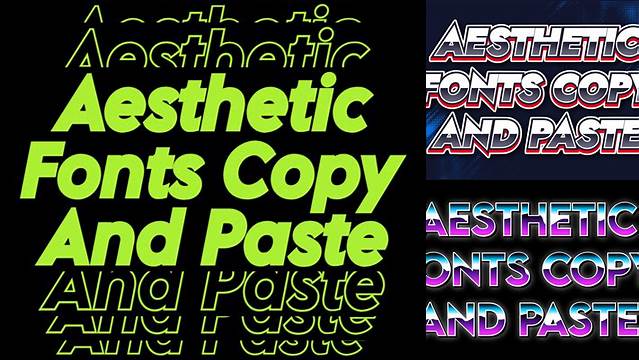
Aesthetic Text Fonts: Generate, Copy, & Paste Like A Pro!
Hey everyone! 👋 Ever wanted to spice up your social media posts, bios, or messages with some seriously cool fonts? You know, the ones that make your text stand out and scream aesthetic? Well, you're in the right place! This article is all about aesthetic text fonts and how to generate, copy, and paste them like a total pro. We'll dive into the world of fancy fonts, explore different generators, and give you all the tips and tricks you need to become a font aficionado. Let's get started!
1. What Exactly Are Aesthetic Text Fonts?
Okay, so first things first: what are aesthetic text fonts? They're basically stylized versions of the regular fonts you see every day. Think of them as the designer outfits for your plain text. They're fonts that are designed to be visually appealing, often incorporating unique styles, symbols, and characters to create a specific vibe. These fonts can range from elegant and sophisticated to quirky and playful, allowing you to express your personality and creativity in a whole new way. The beauty of aesthetic text fonts lies in their ability to transform ordinary text into something extraordinary. They're perfect for adding a touch of flair to your Instagram captions, Twitter bios, Facebook posts, or even your online usernames. Whether you're aiming for a vintage look, a futuristic feel, or something totally unique, there's an aesthetic text font out there for you. Plus, they're incredibly easy to use – just generate, copy, and paste! So, get ready to level up your text game with these amazing fonts. They are awesome and allow you to stand out from the crowd.
2. Top Aesthetic Text Fonts Generators You Need to Know
Alright, now that you know what aesthetic text fonts are, let's talk about how to get them. The key is a good font generator! There are tons of these tools online, but we've compiled a list of the best ones to save you time and effort. One of the most popular is the 'Stylish Text' generator. This tool is super user-friendly – just type in your text, and it instantly generates a variety of aesthetic text fonts for you to choose from. You can then copy and paste your favorite font directly into your social media profiles or messages. Another great option is the 'Cool Symbols' generator, which offers a wide range of fonts and symbols to enhance your text. It’s fantastic if you want to add extra elements, like hearts, stars, or other symbols. The 'Font Generator' is another excellent choice, known for its diverse collection of unique fonts. This generator is perfect for finding those truly unique and eye-catching aesthetic text fonts. It’s important to remember that not all fonts are compatible with every platform. Some fonts may not display correctly on certain devices or social media sites. So, it's always a good idea to test your generated text before posting it. Don’t worry; it is usually very easy! Keep experimenting with different generators until you find the perfect aesthetic text fonts that match your style and personality. These generators make it incredibly easy to transform your plain text into something beautiful and captivating. They are so important.